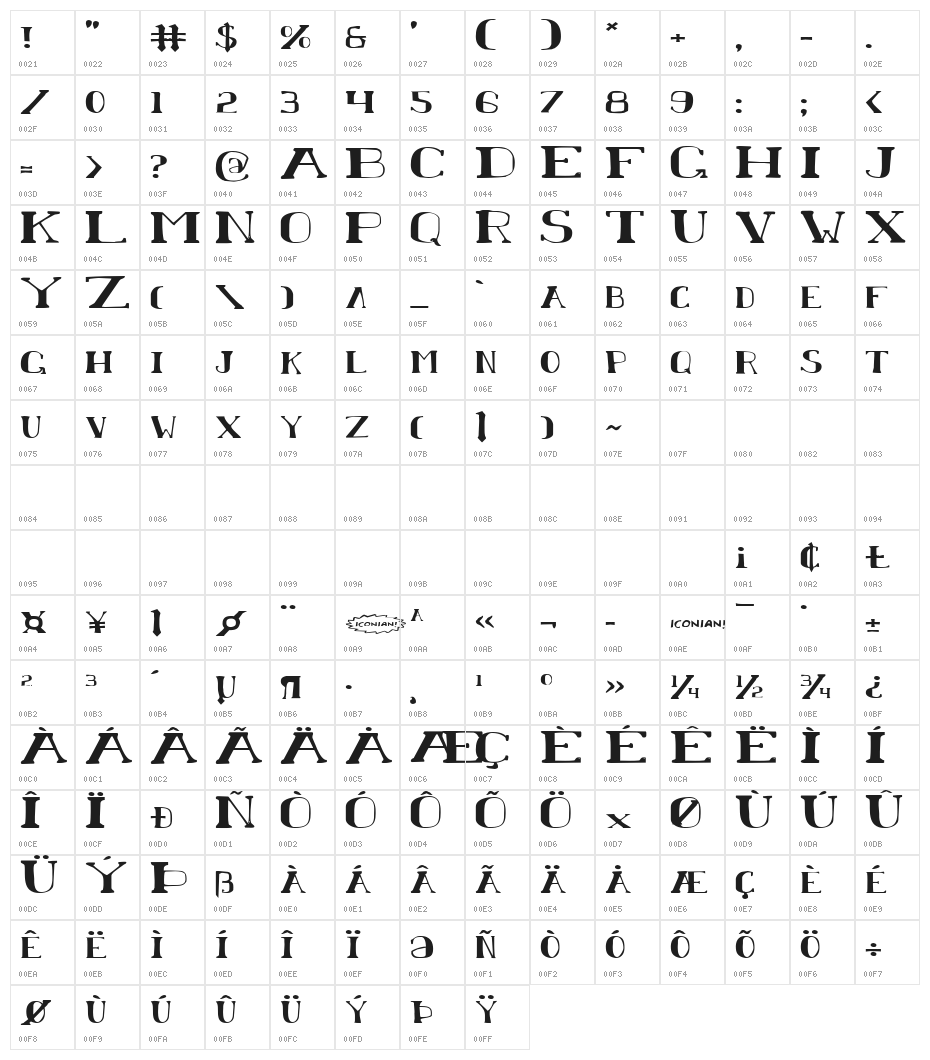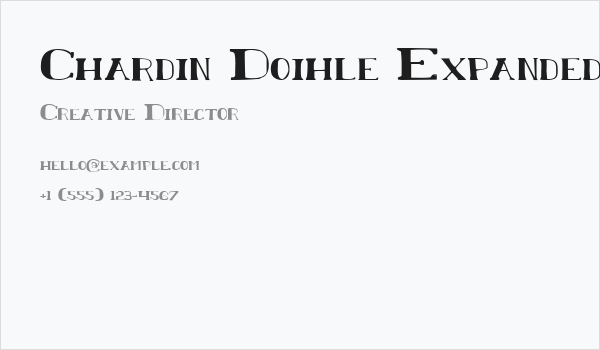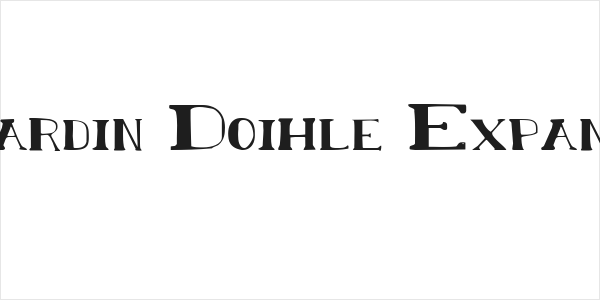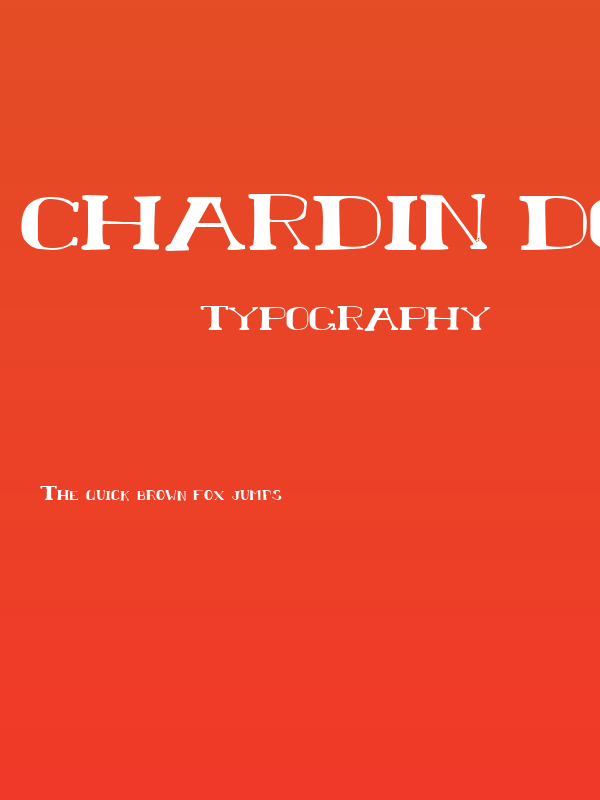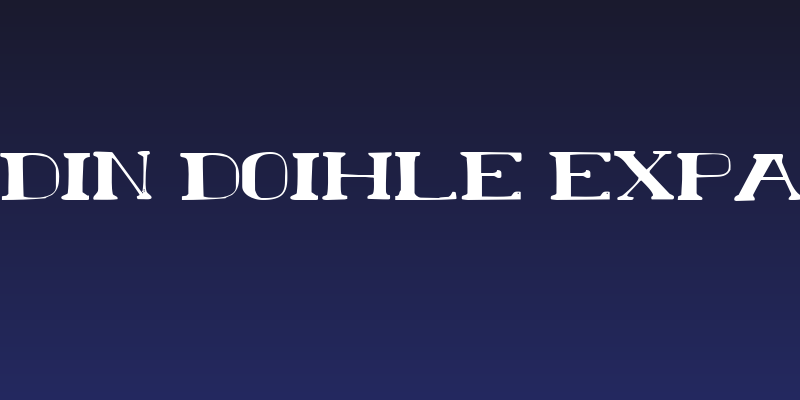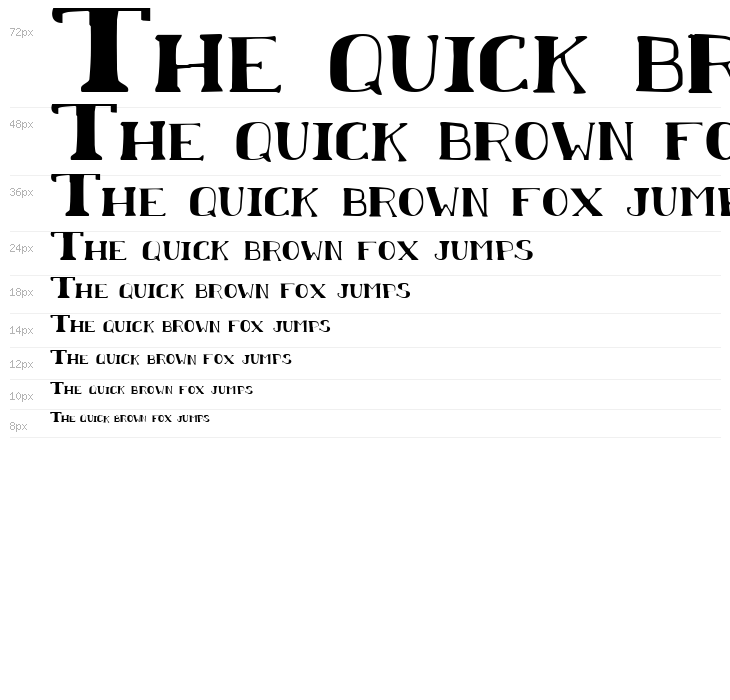
Chardin Doihle Expanded Font
Chardin Doihle Expanded Description
This font features a bold and striking design with a modern twist. The characters are expanded, giving them a wide appearance that commands attention. The uppercase letters have a unique blend of sharp angles and smooth curves, creating a dynamic and eye-catching look. The lowercase letters maintain this style, ensuring consistency across the typeface. The numerals are equally bold, with a distinctive style that complements the alphabet. Special characters are designed with the same attention to detail, making them stand out. This font is perfect for projects that require a strong visual impact.